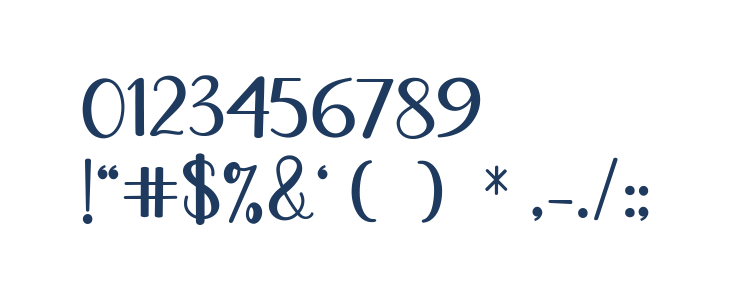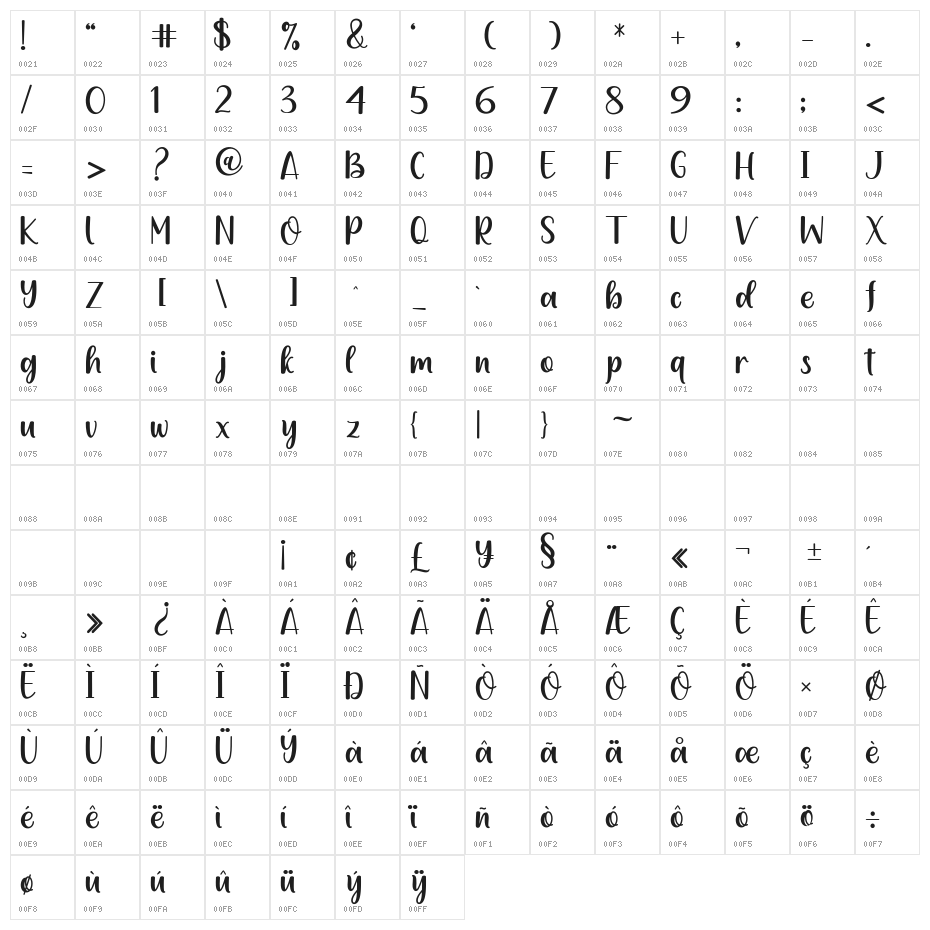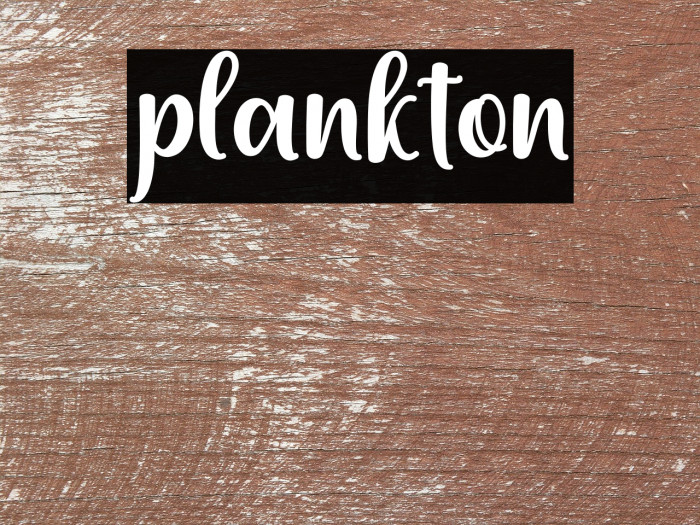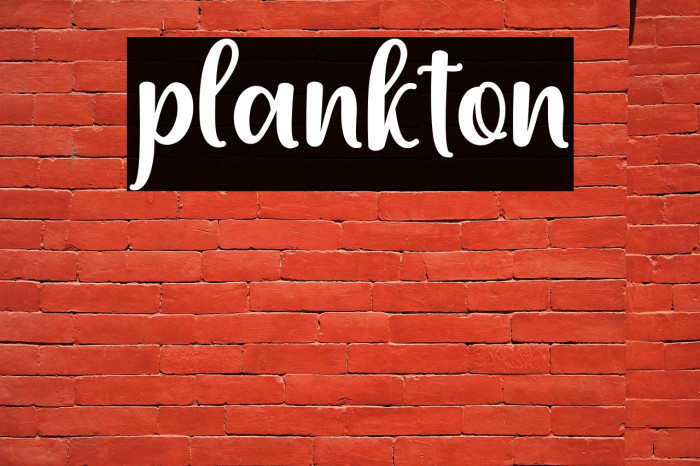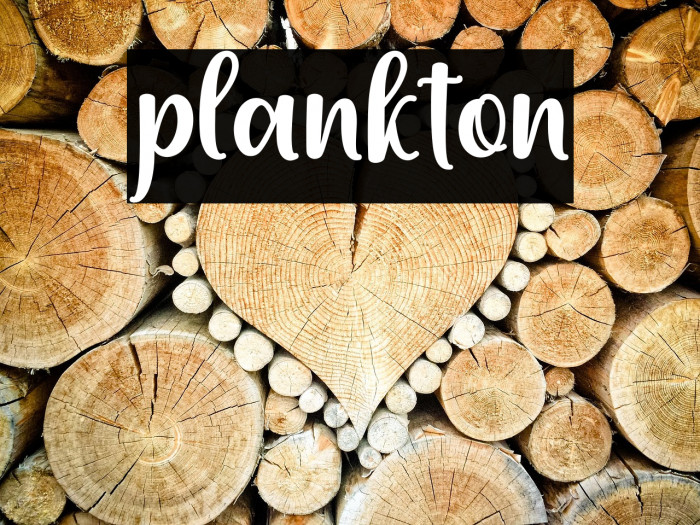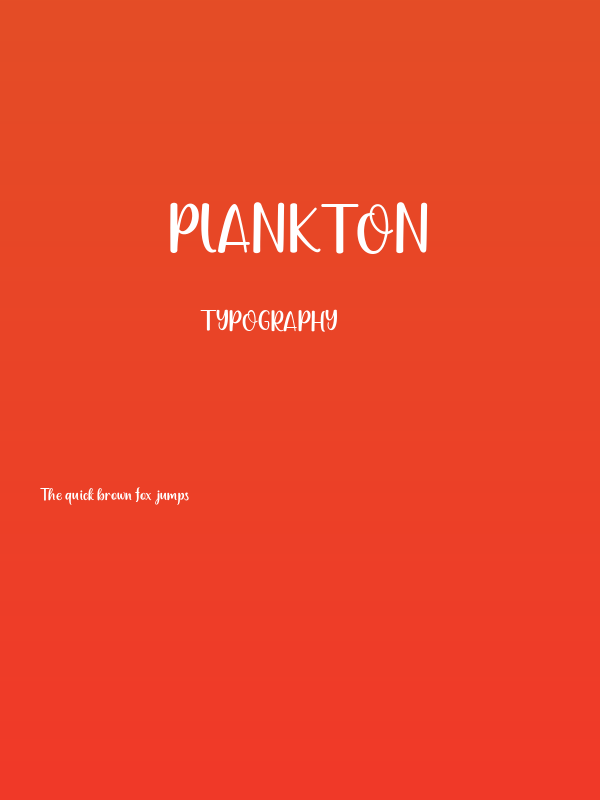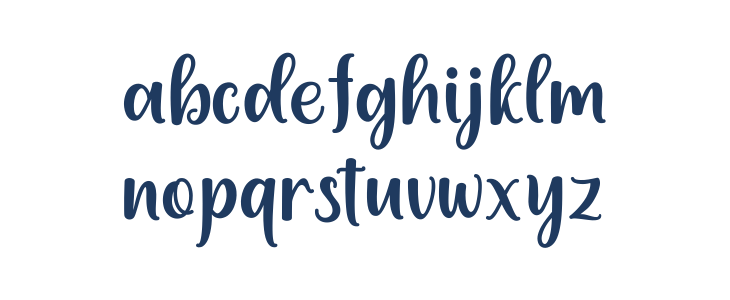
plankton Font
plankton Description
This font features a playful and whimsical style, characterized by its smooth, flowing curves and slightly irregular shapes. The uppercase letters are bold and rounded, with a friendly and approachable appearance. The lowercase letters maintain a consistent style, with some letters exhibiting unique flourishes that add to the font's charm. The numerals are clear and legible, matching the overall playful aesthetic. Special characters are well-integrated, maintaining the font's cohesive look. This font is ideal for projects that require a fun and informal touch, such as children's books, greeting cards, or playful branding.